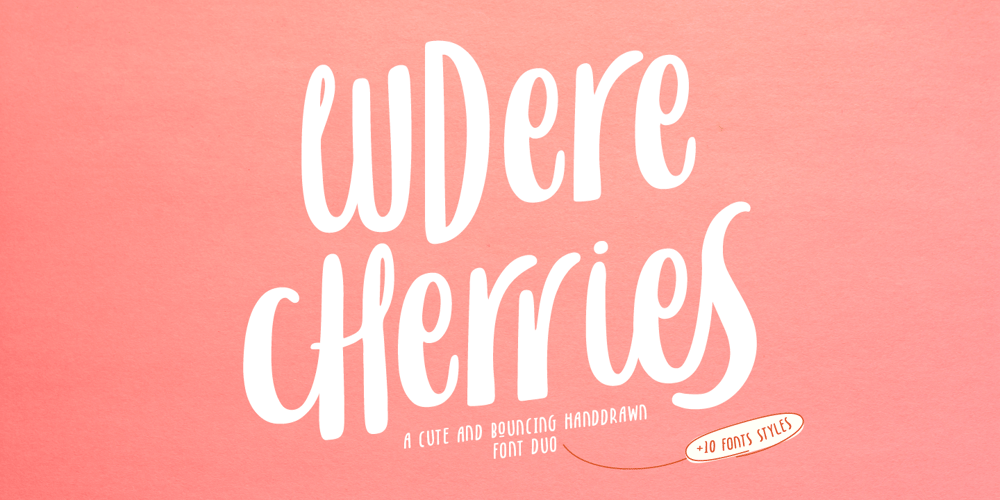
LD Cherries Font Family was designed by Andika Setiawan and published by Dikas Studio. LD Cherries contains 11 styles and family package options. Hello… this is Cherries, a cute and bounch hand drawn font family. Cherries have 5 weight: light, regular, medium, semibold and bold with 2 styles: regular and slanted also included with pairing font Cherries Display. Cherries included with some alternate character and ligature to make your design awesome. Cherries is fun and very suitable for cute or girly design needs such as cover design, typography, sticker, greetings card, logo, merchandise and many more. Cherries also easy for read and you can use it for quote or caption. Add this beautiful handwritten font to each of your creative ideas and notice how it makes them stand out!